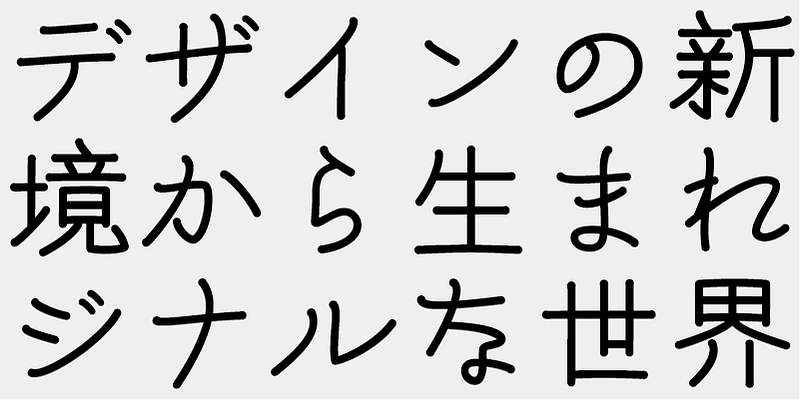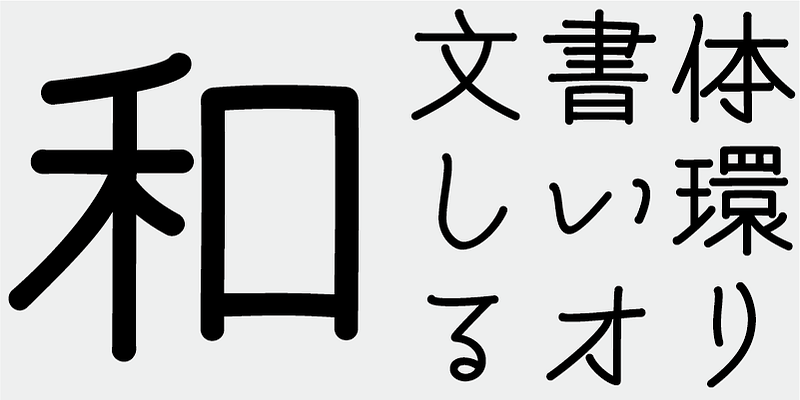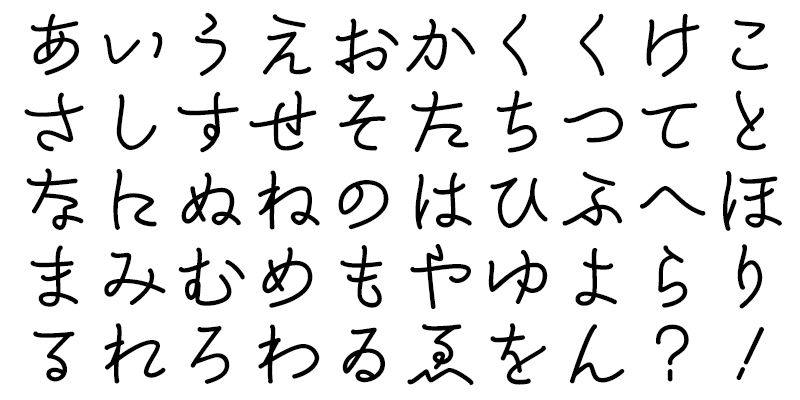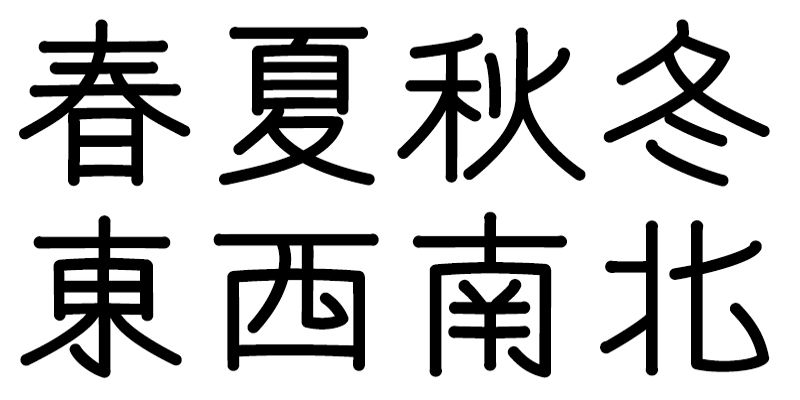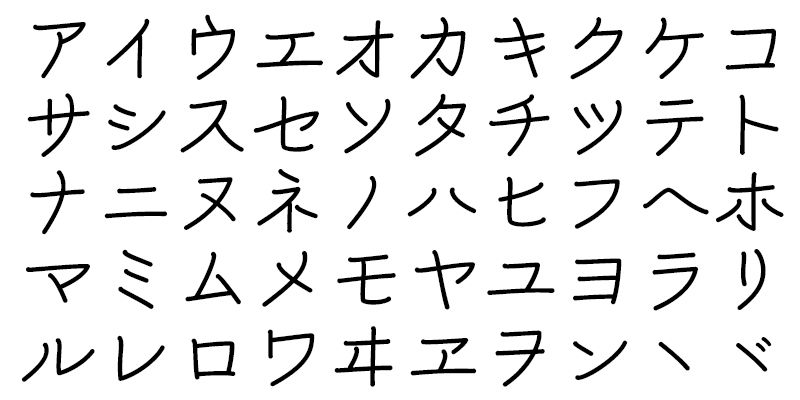
Designed with the image of sea breezes, mountain winds, green woods, and the nature still preserved today. You sense the stretch of history from a design evoking times past and slowly drawn brush strokes.